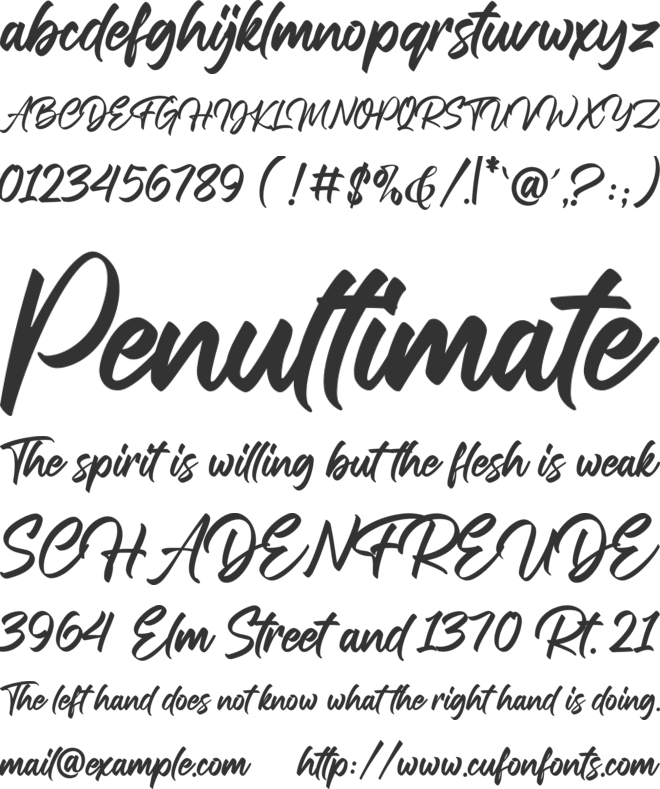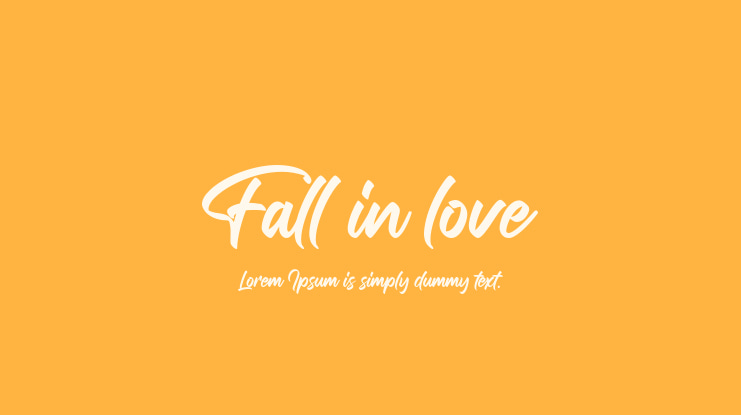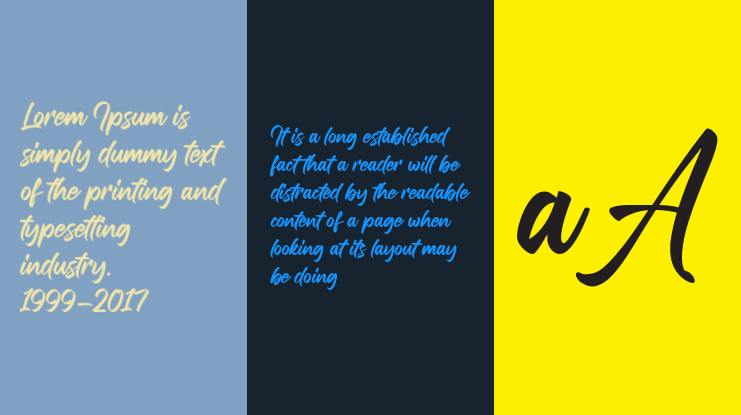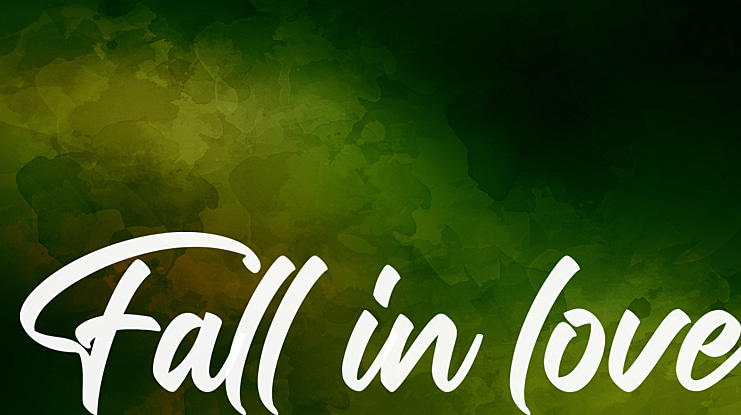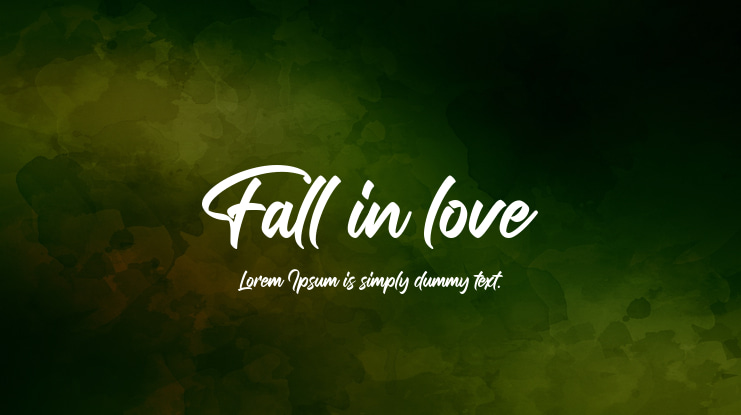
Fall in love Font
Bold and stylish calligraphy script font with modern touch give authentic, charismatic & confident font choice for a range of design projects.NOTE :- This font is PERSONAL USE ONLY, NO COMMERCIAL USE ALLOWED.- Purchase Commercial License here https://onedsgn.com/product/fall-in-love/